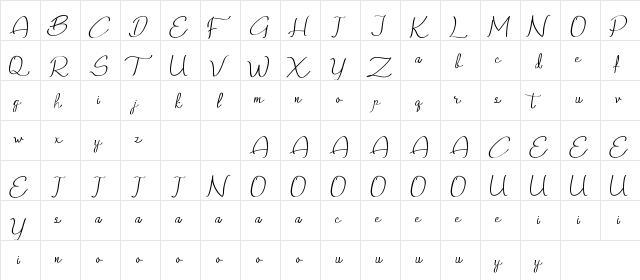
Qalin Demo Handwritting Regular
Design Context for Qalin Demo Handwritting Typeface
Qalin Demo Handwritting brings a calligraphic fluidity to the page — its connecting strokes and expressive curves give it an unmistakably human quality.
Font Pairing: Combine Qalin Demo Handwritting with a simple geometric sans for maximum contrast — the tension between flowing curves and clean structure is a classic typographic pairing.
Pro Tip: Use Qalin Demo Handwritting for short runs of text — names, titles, or taglines. Extended body copy in script faces tires the eye quickly.